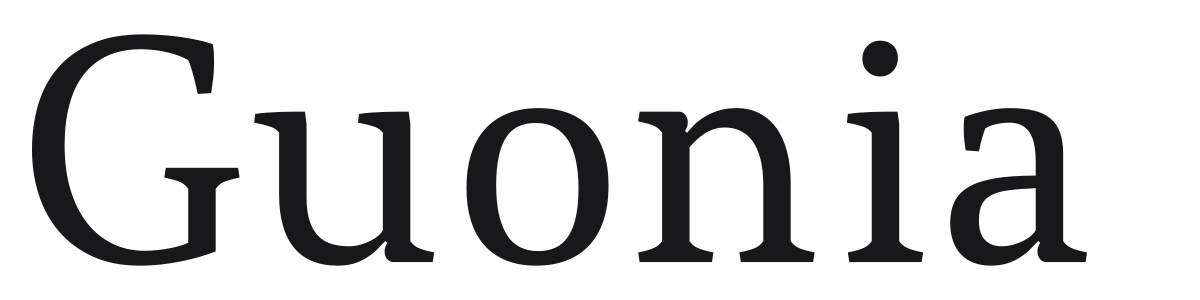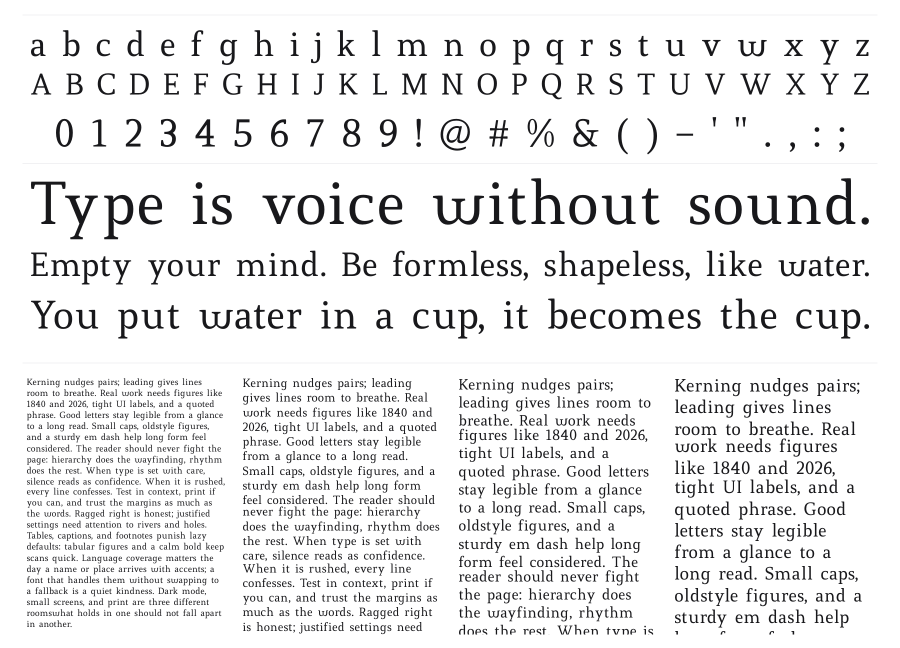
Guonia
Guonia is a transitional serif by Leandro Ribeiro Machado with smooth bracketed serifs and moderate stroke contrast. It carries the warmth of old-style forms while maintaining the upright clarity of a transitional design, making it comfortable across both body copy and display sizes. A solid choice for editorial, publishing, and branding work that wants presence without stiffness.